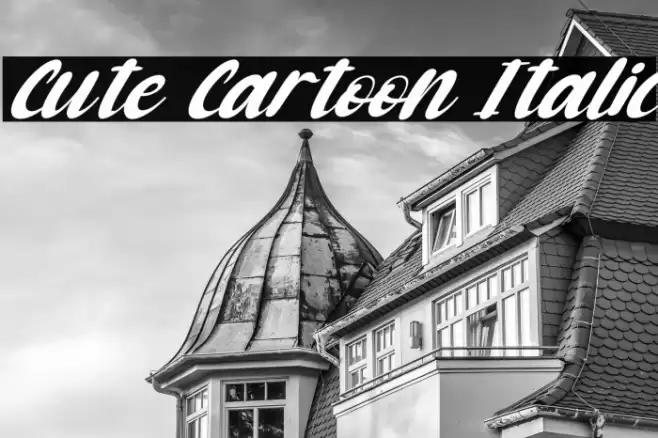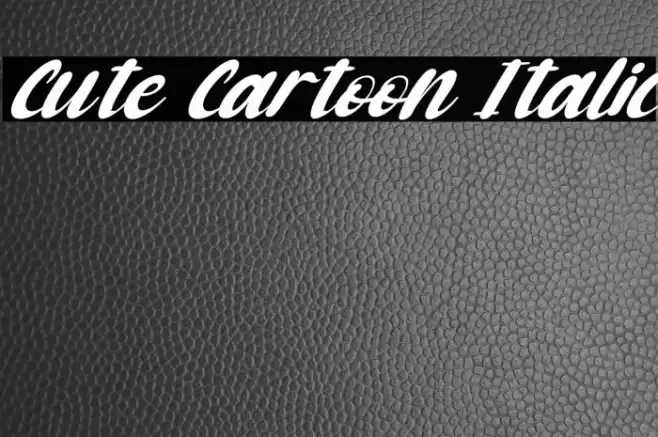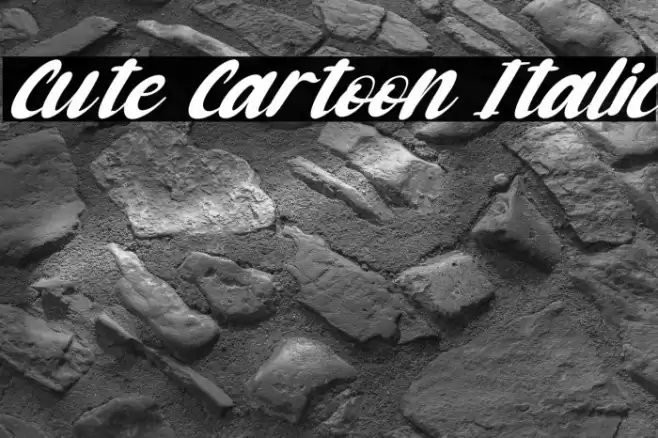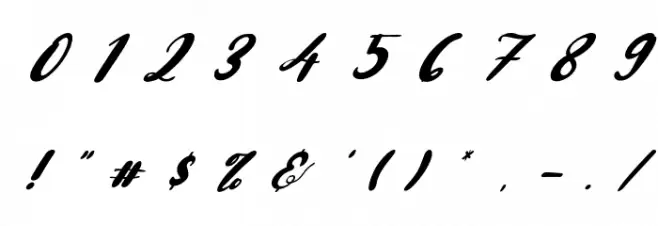
Cute Cartoon Italic Font
Cute Cartoon Italic Description
This playful and whimsical font features a lively italic style with a handwritten feel. The characters are bold and expressive, with a smooth flow that mimics natural handwriting. The uppercase and lowercase letters maintain a consistent slant, enhancing the dynamic and energetic appearance. The numbers and special characters are equally stylized, contributing to the overall cohesive look. This font is perfect for projects that require a touch of fun and creativity, making it ideal for children's books, playful branding, and eye-catching headlines.
A playful, bold italic font with a handwritten style from Regular fonts.
- Proposed Projects: Ideal for children's books, playful branding, and eye-catching headlines.
- Overall Style: Playful, Whimsical
- Use Case: Headlines, Logos, Creative projects